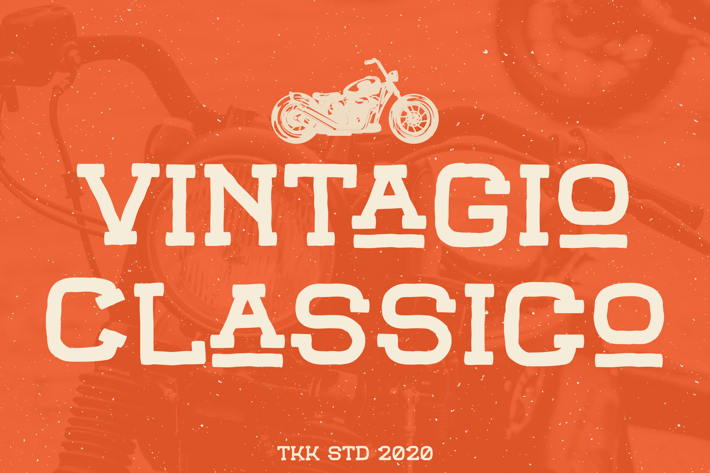
Vintagio Classico - Vintage Serif Font
Vintagio Classico is a bold and nostalgic vintage serif font with tight curves, sturdy terminals, and a naturally rugged vibe. Inspired by retro motorcycle posters, beach rides, and 70s road trip culture, it delivers a distinct, masculine-meets-adventure aesthetic. The high contrast letterforms and tight tracking give your designs that classic Americana grit with a strong, visual punch.
Use it when your branding needs to look heritage-rich, confidently bold, and always ready to hit the road.
Perfect for Strong Brands, Posters, and Editorial Work
Whether you're designing a motorcycle event banner, a beer label, a vintage apparel logo, or even a surf lifestyle campaign, Vintagio Classico brings legacy and boldness in every letter. Its powerful serif shapes communicate trust and tradition—while the slightly compressed, modular style keeps it fresh and purposeful.
Key Features:
Strong Serif Construction – Rooted in early 20th-century design with updated edge control
Rugged Yet Refined Vibe – Evokes retro motor club posters and dusty highways
All-Caps Excellence – Uppercase-rich presentation ideal for attention-grabbing text
Versatile Usage – Works in posters, labels, signage, editorial titles, and logos
Let Your Design Ride with Legacy
Vintagio Classico is for designers who build culture, not trends. It’s ready to give your work the visual horsepower it needs to stand out with heritage and confidence. So whether you're launching a rugged brand or crafting timeless merchandise—this font fuels the journey.